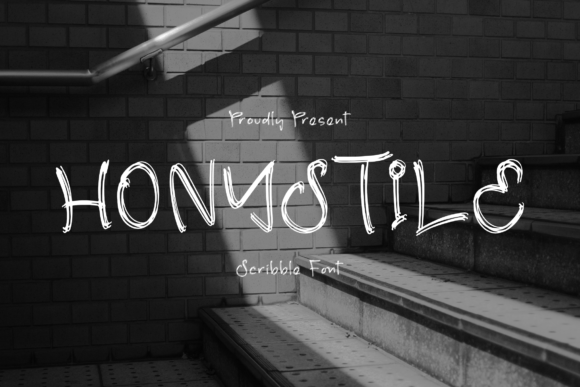
Honystile: A Modern Script Font for Elegant Branding
I was staring at a blank brand board for a new boutique skincare line last Tuesday, the kind of project where the typography needs to do 80% of the heavy lifting. The client wanted something that felt personal and handmade but still polished enough for high-end retail shelves. After cycling through a dozen generic typefaces that felt either too stiff or too messy, I opened up Honystile. As a modern and elegant script font, it immediately changed the energy of the draft. There is a specific flow to this Script Handwritten style that bridges the gap between casual creativity and professional sophistication, making it one of those rare Fonts that actually delivers on its promise when you move from the screen to a physical mockup.
Using Honystile for Logos and Boutique Brand Identity
When testing Honystile for the primary logo mark, the first thing I noticed was how naturally the letters connected without looking forced. Many script fonts struggle with awkward ligatures or inconsistent stroke weights, but this typeface maintains a fluid rhythm that feels authentic. For a brand identity project, especially in the lifestyle or beauty niche, Honystile offers a personality that is warm yet refined. I placed it alongside a clean sans serif font for the subtext, and the contrast was immediate and effective. This combination works exceptionally well for business cards and letterheads where you need the logo to pop while keeping the contact information legible. If you are building a brand from scratch, using Honystile as your display font can establish a strong visual hierarchy that draws the eye instantly.
Elevating Product Packaging and Homeware Designs with Honystile
The real test for any Script Handwritten typeface is how it translates to physical products. I applied Honystile to a series of packaging mockups, including glass jars and cardboard boxes. The elegance of the strokes holds up beautifully even when printed on textured paper or embossed foil. Because Honystile is a modern and elegant script font, suitable for a variety of projects such as logos, branding, homeware designs, product packaging, mugs, quotes, posters, shopping bags, t-shirts, book cov, it shines brightest in these tactile applications. Imagine this font on a ceramic mug or a canvas shopping bag; the organic curves add a human touch that mass-produced typography often lacks. For entrepreneurs selling handmade goods or launching a small batch product line, this font can elevate the perceived value of the item before the customer even touches it.
Honystile for Social Media Graphics and Digital Content
In the digital realm, readability is king, but personality is queen. When creating social media graphics for the campaign, I used Honystile for pull quotes and headline overlays on Instagram stories. The open counters and distinct letterforms ensure that short phrases remain readable even on smaller mobile screens. However, like most decorative Fonts, it is best reserved for headlines rather than long body copy. I found that pairing it with a neutral serif font for the caption text created a balanced editorial look that performed well in layout tests. Whether you are designing Pinterest pins, YouTube thumbnails, or website headers, Honystile adds a layer of stylistic consistency that helps audiences recognize your content instantly. It is particularly effective for quote posters where the emotional tone of the text needs to be reinforced by the shape of the letters.
Applying Honystile to Apparel and Merchandise Mockups
Moving beyond paper and screens, I tested how Honystile behaves on apparel. Script fonts can sometimes get lost in the weave of fabric or break up when heat-pressed onto t-shirts, but the stroke weight here is substantial enough to maintain integrity. I visualized a simple logo placement on the chest of a tee and a larger graphic on the back of a tote bag. The result was a design that felt intentional and stylish rather than sloppy. This makes Honystile a strong candidate for merchandise lines, especially for creative studios or influencers looking to sell branded gear. The versatility mentioned in its description—covering everything from mugs to book covers—holds true because the design avoids overly thin hairlines that might vanish during production. It strikes a balance that allows it to work on both light and dark backgrounds with minimal adjustment.
Practical Limitations and Font Pairing Strategies for Honystile
While Honystile excels in display roles, it is important to acknowledge where it should not be used. As with any Script Handwritten font, it is not suitable for long paragraphs of body text, legal disclaimers, or data-heavy tables. The cursive nature of the letters requires white space to breathe, so cramming them into small sizes will reduce legibility and hurt the overall professionalism of the design. For a complete brand system, I recommend pairing Honystile with a geometric sans serif for UI elements or a classic serif for editorial articles. This creates a modern typography system that feels curated rather than chaotic. Before finalizing any client work, always review the specific file formats included, such as OTF or TTF, and check for webfont availability if you plan to use it on a live site. Additionally, always verify the commercial font licensing terms, especially if you intend to use the font for print-on-demand products, templates, or extensive merchandise lines, to ensure you are compliant with the creator's usage rights.
Final Verdict on Honystile for Creative Projects
After spending a week integrating Honystile into various stages of a branding project, from initial concept sketches to final packaging renders, it has proven to be a reliable tool in my toolkit. It captures that elusive "hand-lettered" feel without the inconsistency of actual handwriting. For designers looking to inject warmth and elegance into their work, this font delivers a premium aesthetic that resonates with modern consumers. Whether you are refreshing a café's visual identity, designing a wedding invitation suite, or creating a new line of homeware, Honystile provides the stylistic foundation needed to make a lasting impression. It is a versatile, high-quality typeface that respects the nuances of good design while offering the flexibility required for today's diverse creative projects.